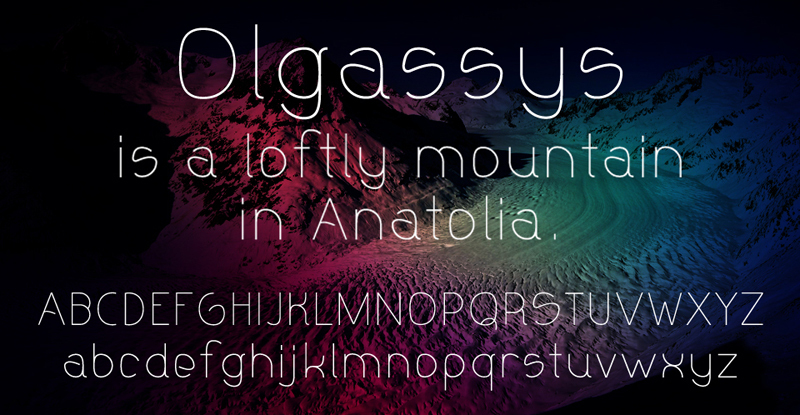
Olgassys by EG is a free minimalist display font with extremely fine, nearly monoline strokes. Tall proportions, broad rounded arches, and a few unexpectedly soft bends give the lettering an airy, fashion-conscious profile.
Modernist in spirit, it suits fashion branding and gallery posters that favor elegant understatement. Editorial covers and beauty packaging can also draw on its hairline delicacy. Across these uses, the generous curves turn typography into a graceful linear motif.